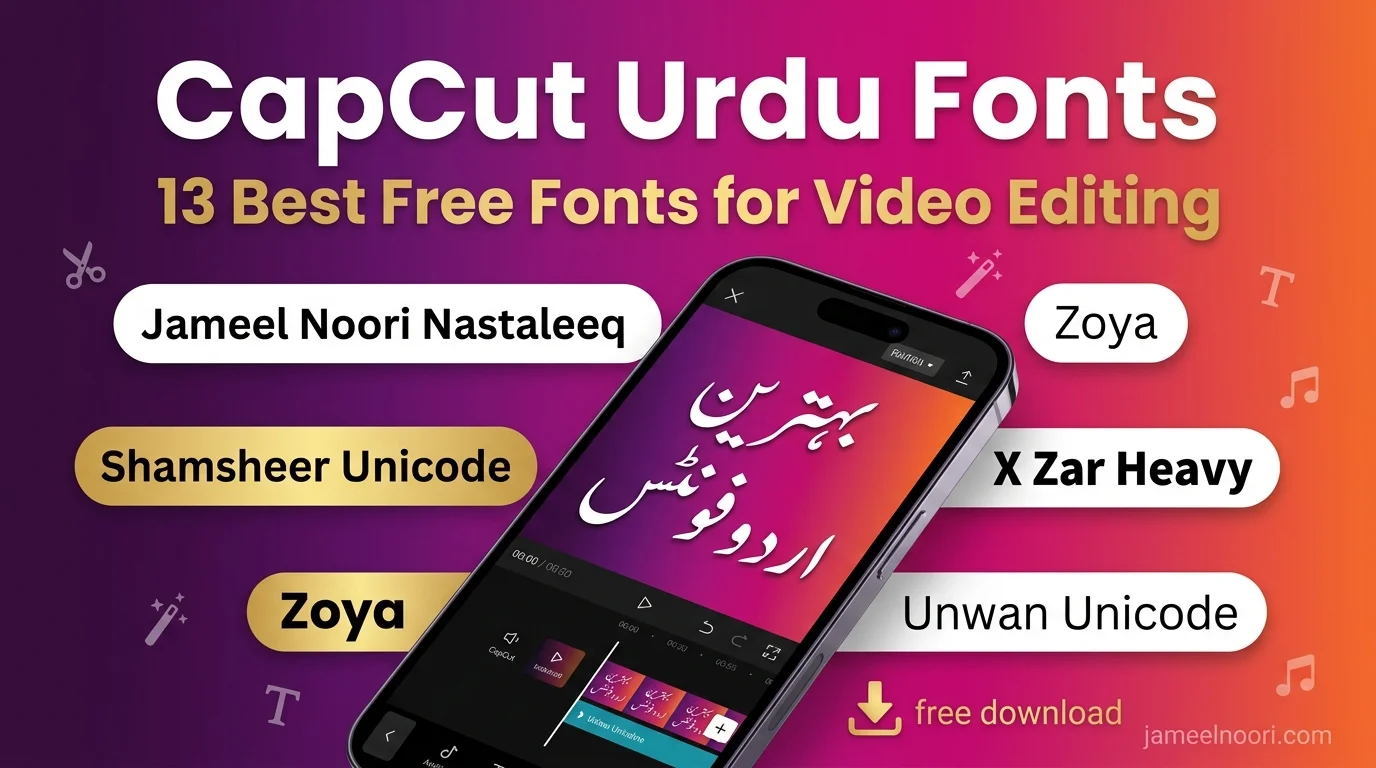
Capcut Urdu Fonts
CapCut Urdu Fonts: 13 Best Free Fonts for Stunning Video Text
If you edit Urdu videos in CapCut, you know the struggle. The app comes with limited fonts. Default CapCut Urdu fonts don’t render properly. Letters break apart. The script doesn’t look natural.
The solution? Custom TTF (TrueType) fonts.
In this guide, I will show you the 13 best CapCut Urdu fonts that you can download for free. I will also explain how to add them to CapCut on Android and iPhone. Plus, I will tell you how using these fonts can increase your earnings as a content creator.
What Fonts Does CapCut Have? What’s Missing?
Let me first explain what CapCut offers by default.
Default fonts in CapCut include:
• System fonts installed on your phone
• Some basic Arabic scripts
• English and other language fonts
What’s missing in CapCut?
• Proper Nastaleeq style Urdu fonts
• Urdu calligraphy fonts with traditional look
• Bold Urdu fonts that look clear on small screens
• Unicode-compliant fonts that connect letters correctly
This is why you need custom CapCut Urdu fonts download. Default options simply don’t work for beautiful Urdu text.
Why Do You Need Custom Urdu Fonts in CapCut? (Benefits)
Using custom CapCut Urdu fonts has many benefits. Let me share from my personal experience.
1. Proper Urdu Rendering
Default fonts break Urdu letters into separate parts. Custom Urdu fonts download for CapCut  connect letters properly. The text looks natural and beautiful.
2. Professional Look
A good font makes your video look professional instantly. Whether you use Jameel Noori font for CapCut or another style, quality shows.
3. Higher Engagement
When your text overlays are clear and beautiful, people watch longer. This is the direct benefit of using the best CapCut Urdu fonts.
4. Brand Identity
If you are a YouTuber, blogger, or TikToker, consistent fonts create recognition. Viewers remember your style.
Jameel Noori fonts for CapCut are popular because they offer both quality and readability.
13 Best CapCut Urdu Fonts – Free Download
I have selected 13 best CapCut Urdu fonts that I personally use. All fonts are in TTF format and 100% compatible with CapCut.
1. Jameel Noori Nastaleeq Regular
This is the best Urdu font for CapCut overall. Written in traditional Nastaleeq style. Perfect for poetry, Islamic content, and storytelling.
Jameel Noori Nastaleeq Regular offers a classic Nastaleeq design for beautiful Urdu writing and digital content.
Best for: YouTube Shorts titles, poetry videos, Islamic content
Style: Traditional Nastaleeq calligraphy
2. Jameel Noori Nastaleeq Bold (Kasheeda)
This is the bold version. Perfect for headings and thumbnails. Thick strokes make it clear on mobile screens.
Download Jameel Noori Kasheeda Regular Urdu Font free – stylish Urdu kasheeda writing font.
Best for: Video headlines, announcement text, call to action
Style: Bold Nastaleeq
3. Shamsheer Unicode
This CapCut Urdu font is very clear and readable. If you want a modern look, choose this. Looks great on YouTube thumbnails.
Elegant Shamsheer Unicode Urdu Font for stylish writing and web design.
Best for: News style videos, informational content, vlogs
Style: Clean, modern